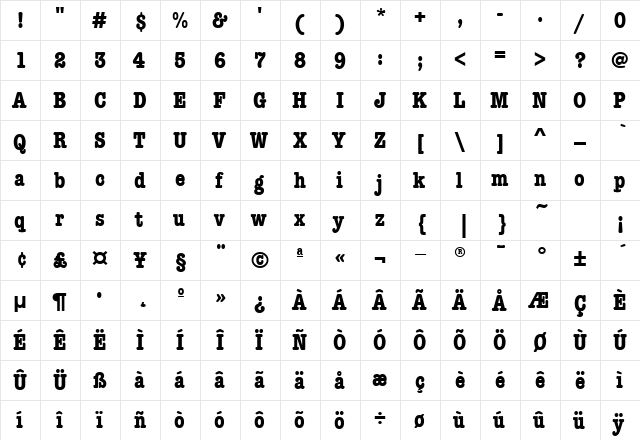
American Typewriter Condensed Bold Font Preview
Design Context for American Typewriter Typeface
American Typewriter uses fixed-width spacing throughout, giving it the structured, systematic character associated with coding environments and technical documentation. The heavy weight commands attention and anchors typographic hierarchies.
Pro Tip: Use American Typewriter with slightly increased line-height for extended reading — fixed-width spacing can feel dense in longer passages without extra breathing room.